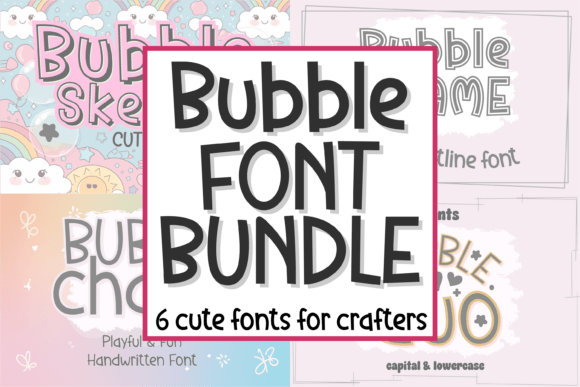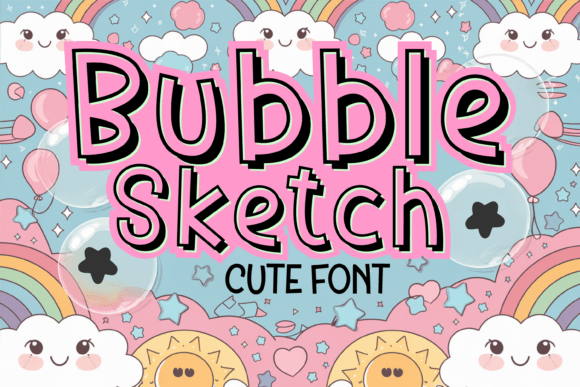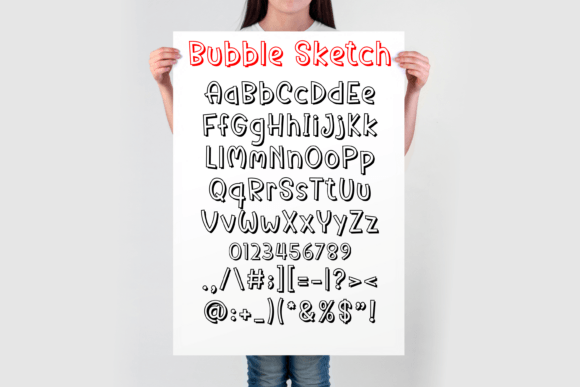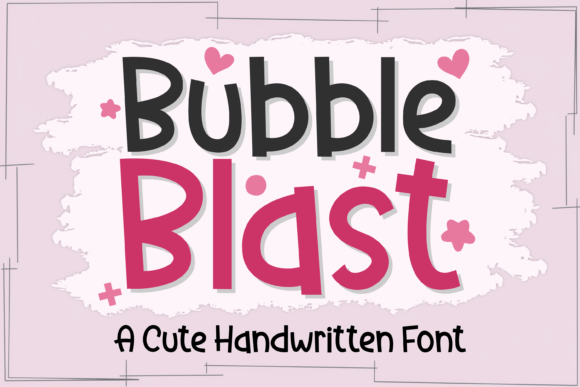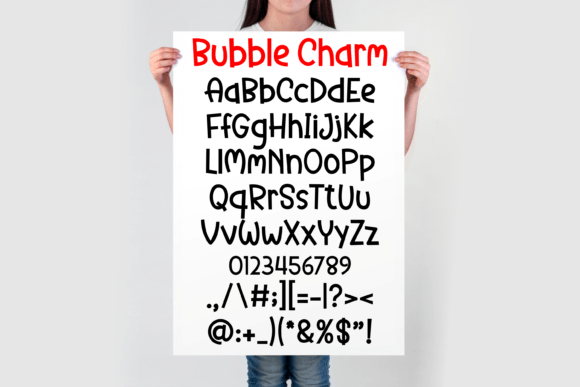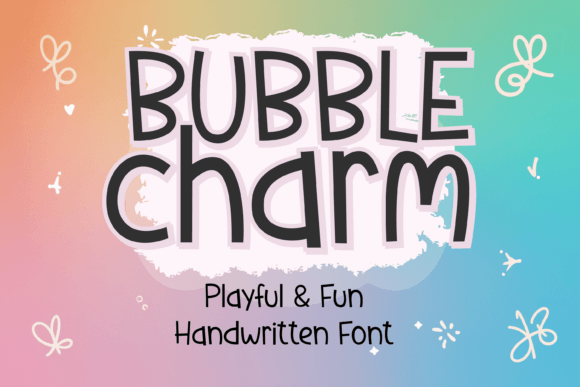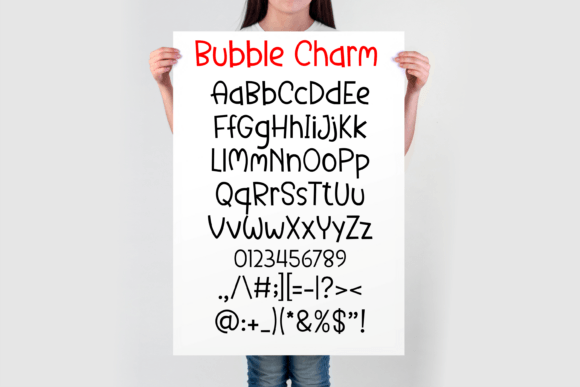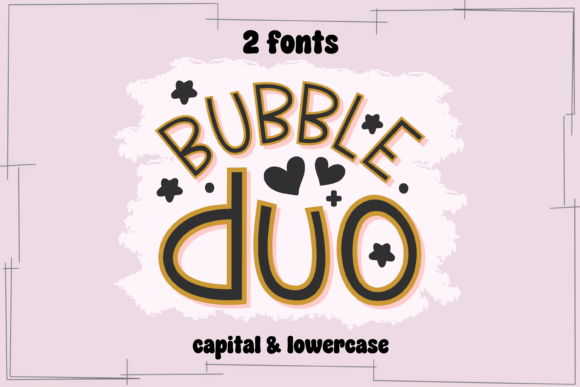
Bubble Bundle Font
Bubble Bliss Font Bundle – A Playful & Cute Handwritten Font Collection
The Bubble Bliss Font Bundle is a delightful and playful collection of bubbly, hand-drawn fonts designed to add a touch of fun and whimsy to your creative projects! Whether you’re looking for a cute, charming, or aesthetic style, these fonts are perfect for Cricut, Silhouette, Procreate, Canva, and Photoshop users. With their rounded, bubbly edges and charming details, these fonts are ideal for everything from stickers and t-shirts to greeting cards, planner pages, and sublimation projects. Whether you want to create a modern, fun design or a soft, playful look, this bundle has everything you need!